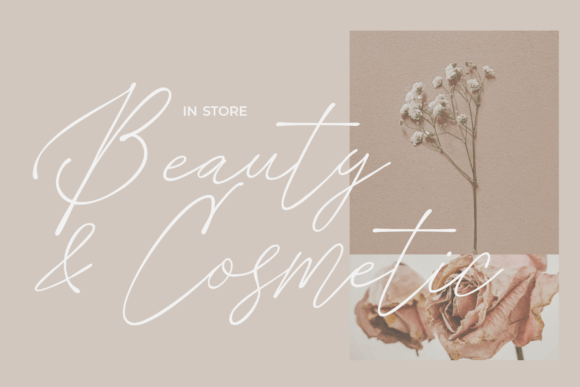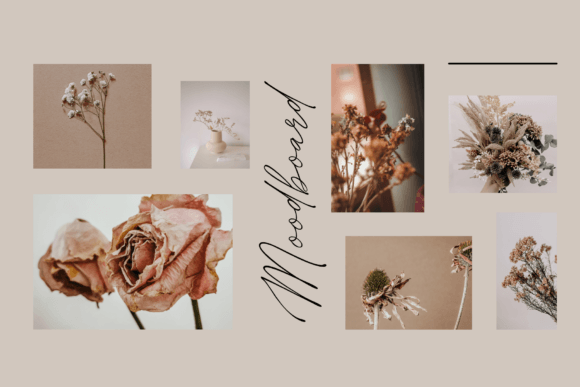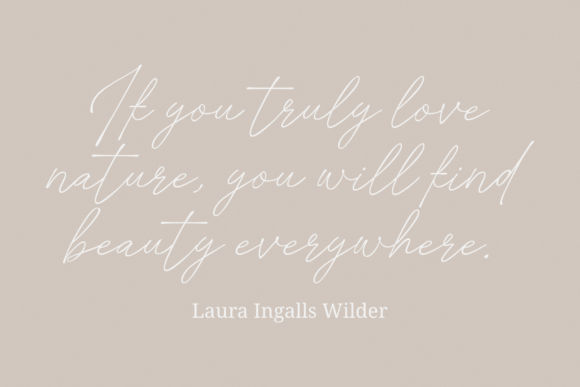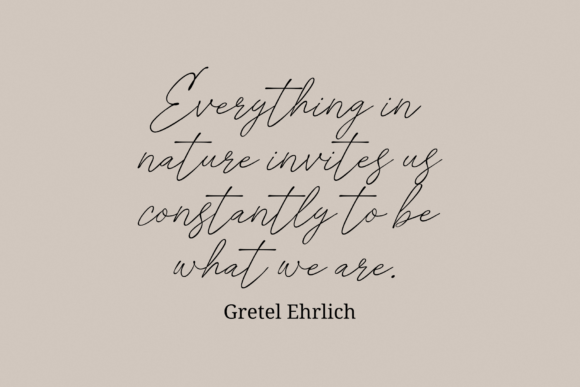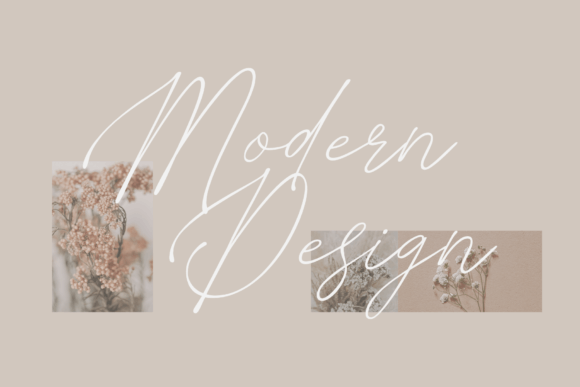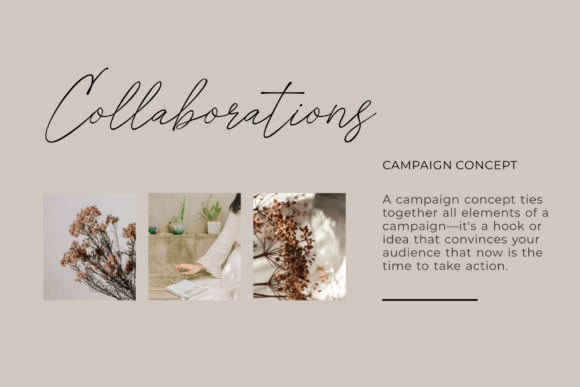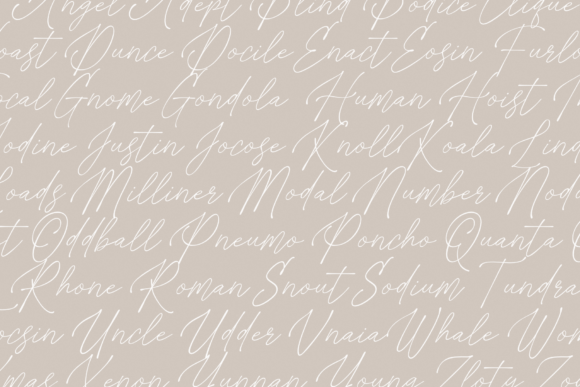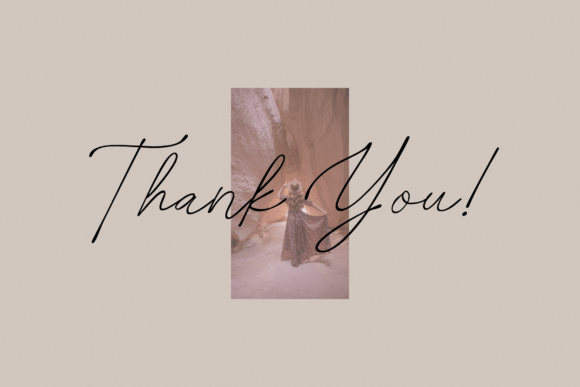
Adeptly Font
“Adeptly” is a modern and classy handwritten font that exudes beauty and charm. Its lovely design makes it well-suited for various applications, including wedding invitations, fashion cards, and more. Adding “Adeptly” to your fonts library opens up opportunities to create stunning and sophisticated designs that capture attention.
The font’s modern and classy aesthetic gives it a versatile appeal, allowing it to seamlessly adapt to different design contexts. Whether you’re working on elegant wedding stationery or chic fashion cards, “Adeptly” brings a touch of sophistication to your projects.
Incorporating “Adeptly” into your designs allows you to infuse a sense of style and grace. Its handwritten quality adds a personal and authentic touch, making it an ideal choice for projects that require a blend of modernity and elegance.
In summary, “Adeptly” is a font that combines modernity and class, making it a valuable asset for designers seeking to create beautiful and memorable designs. Embrace its versatility, and let “Adeptly” elevate the visual appeal of your creations.